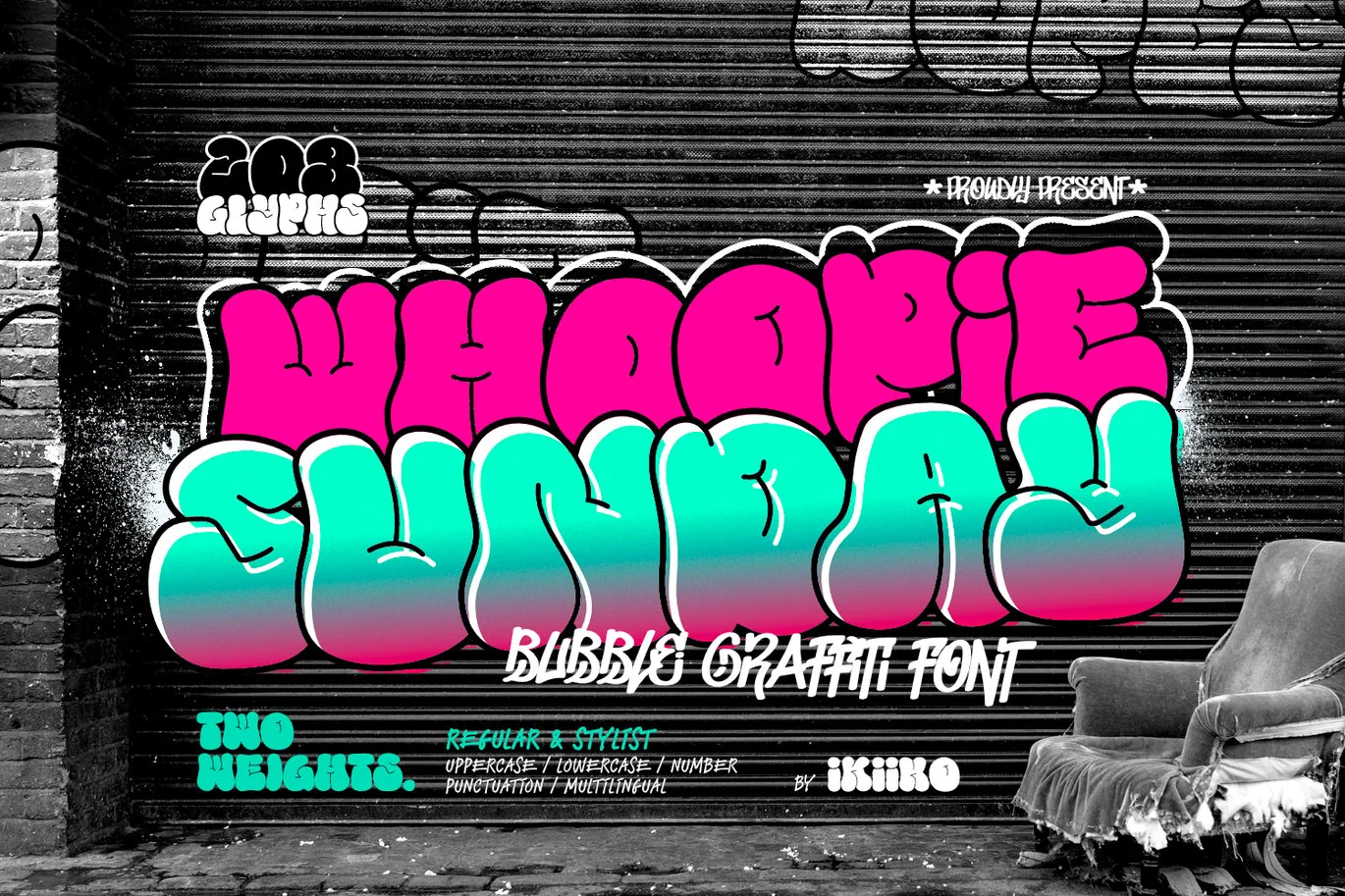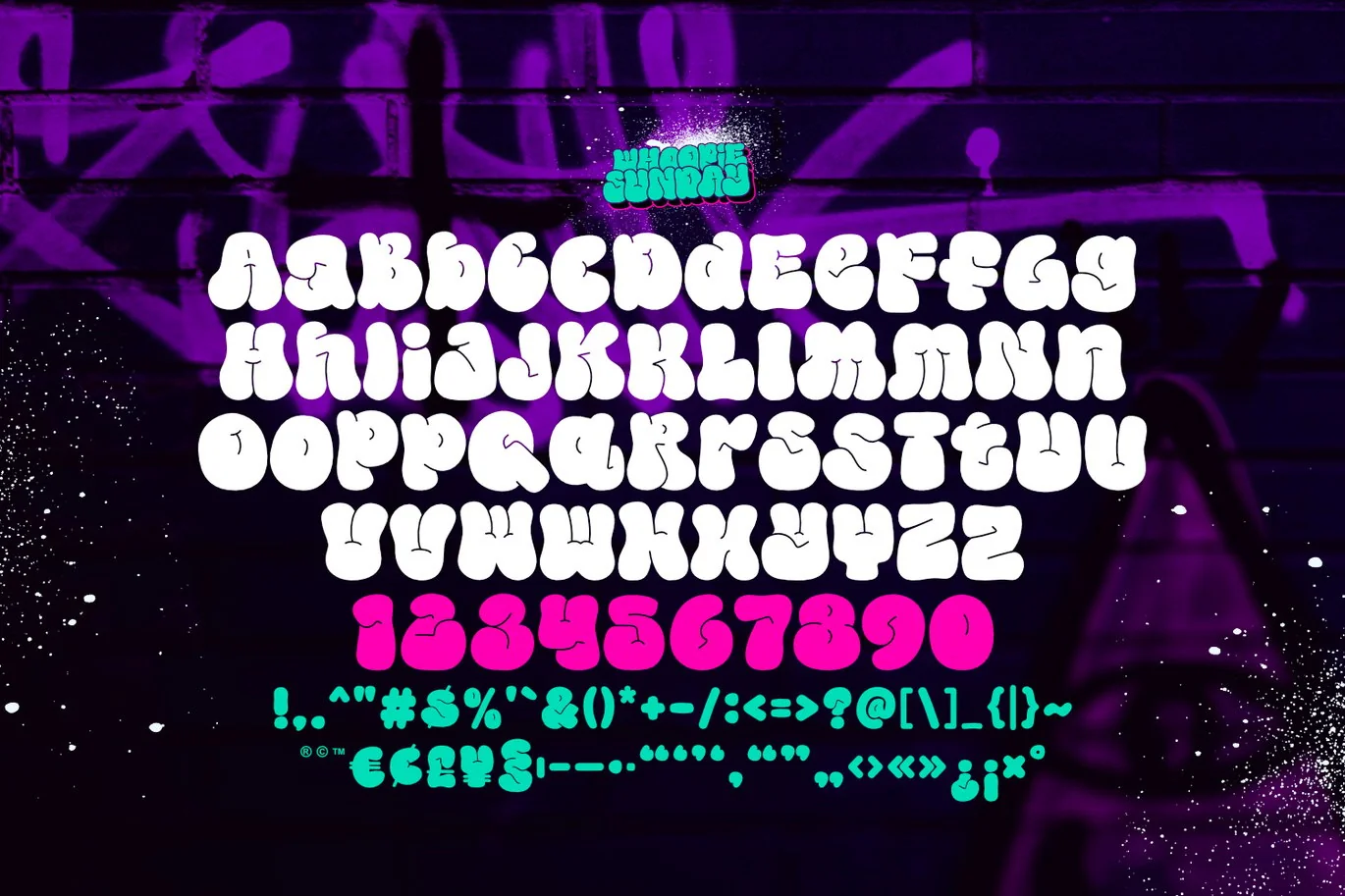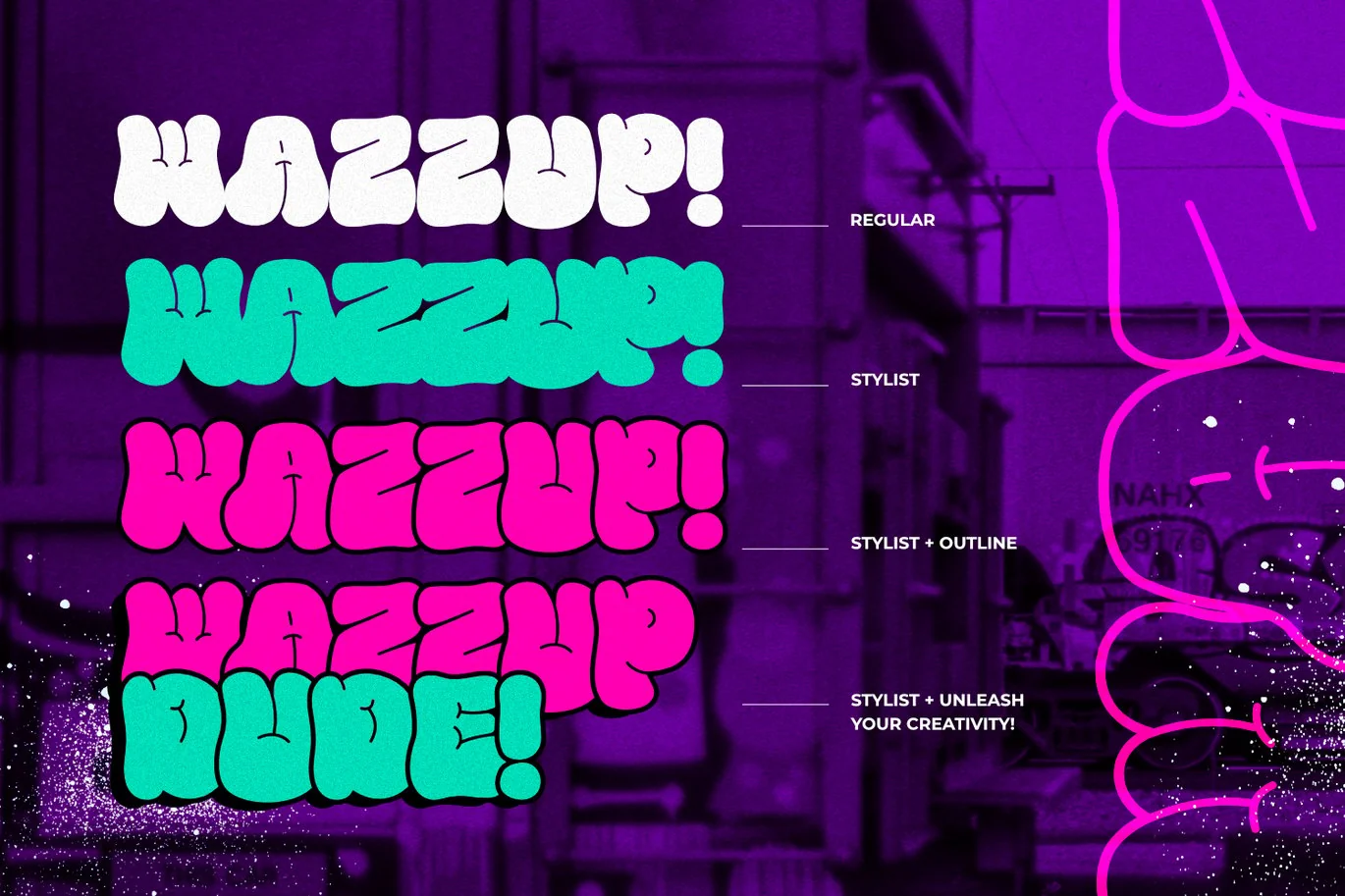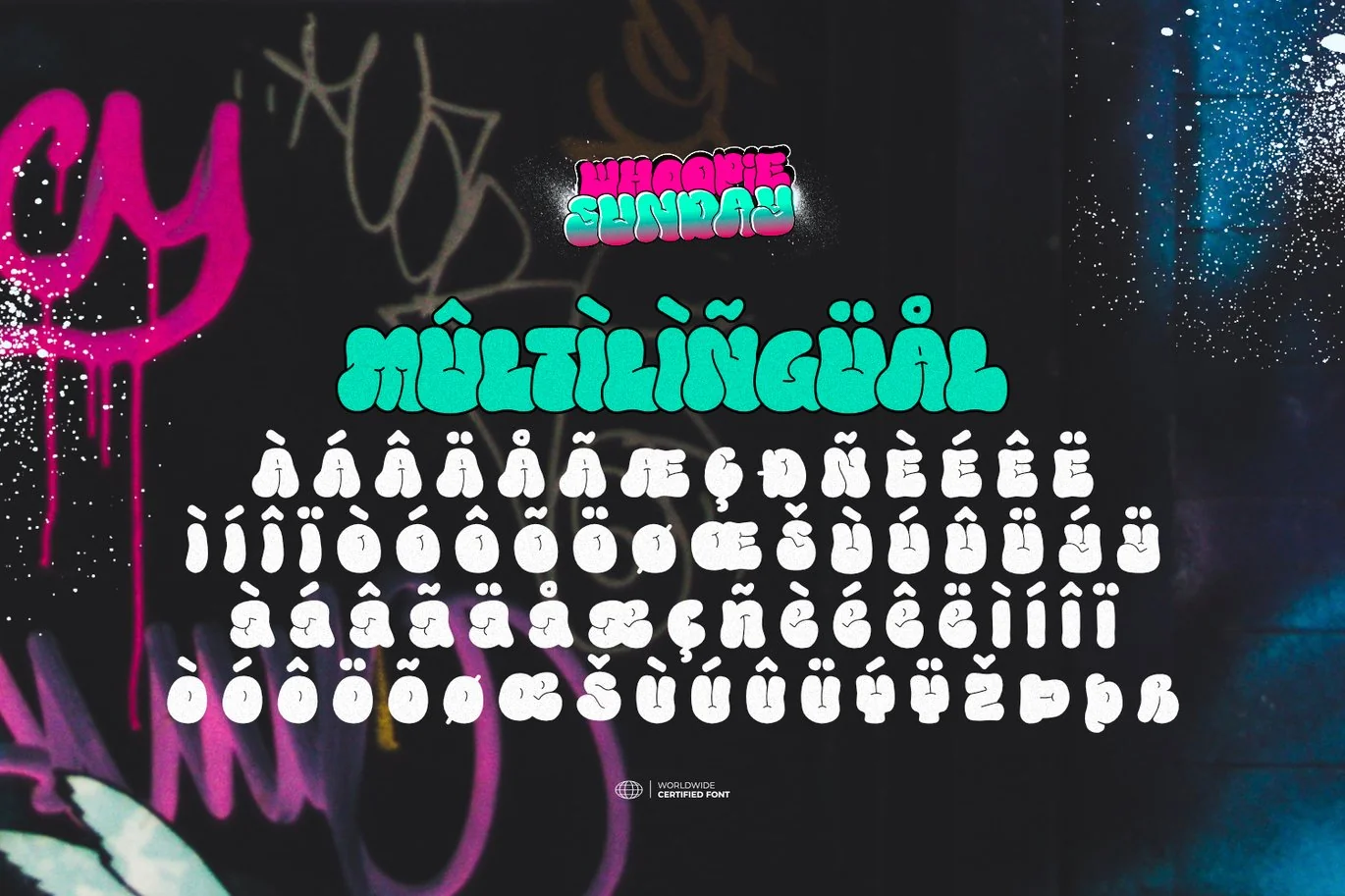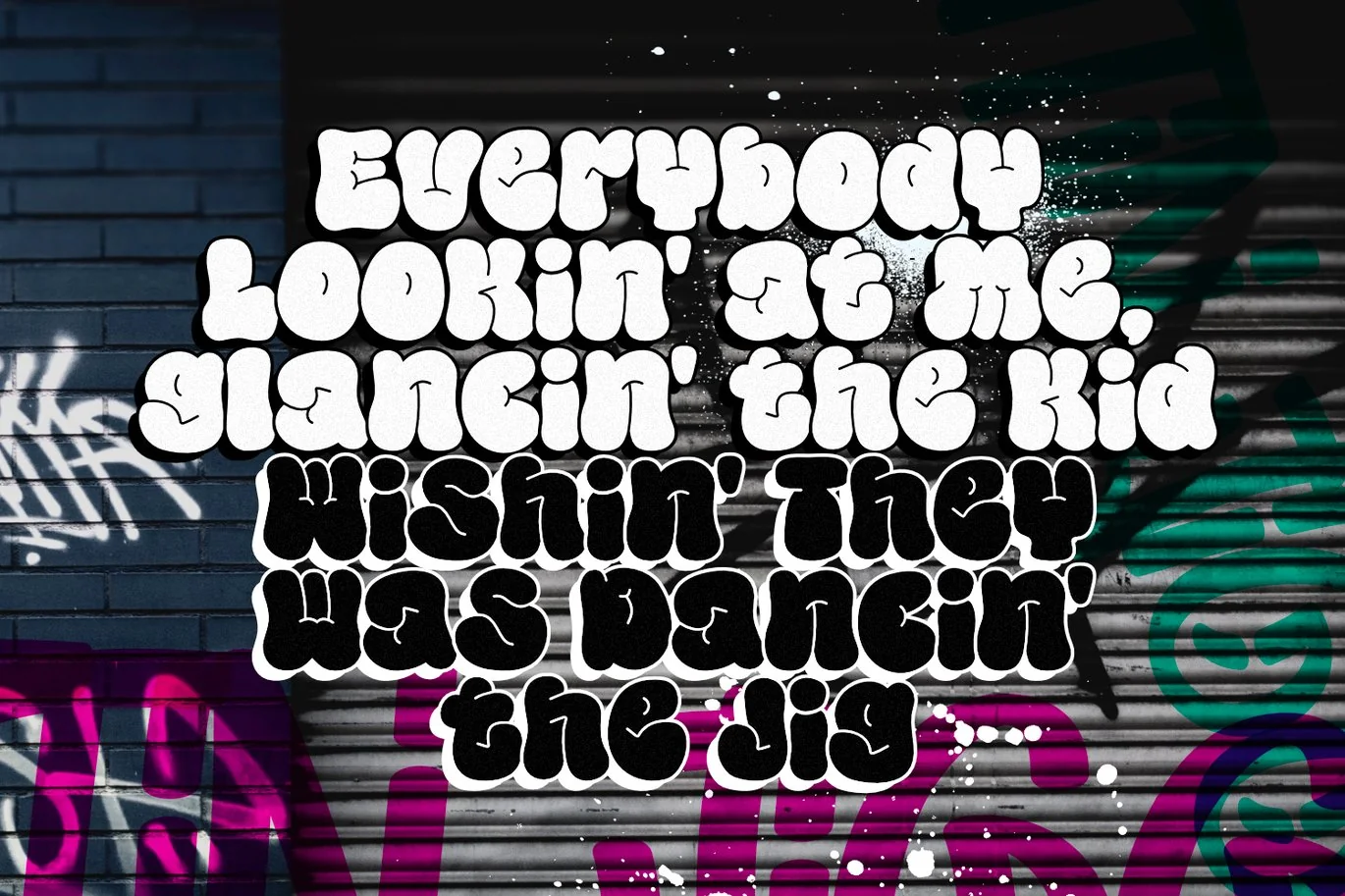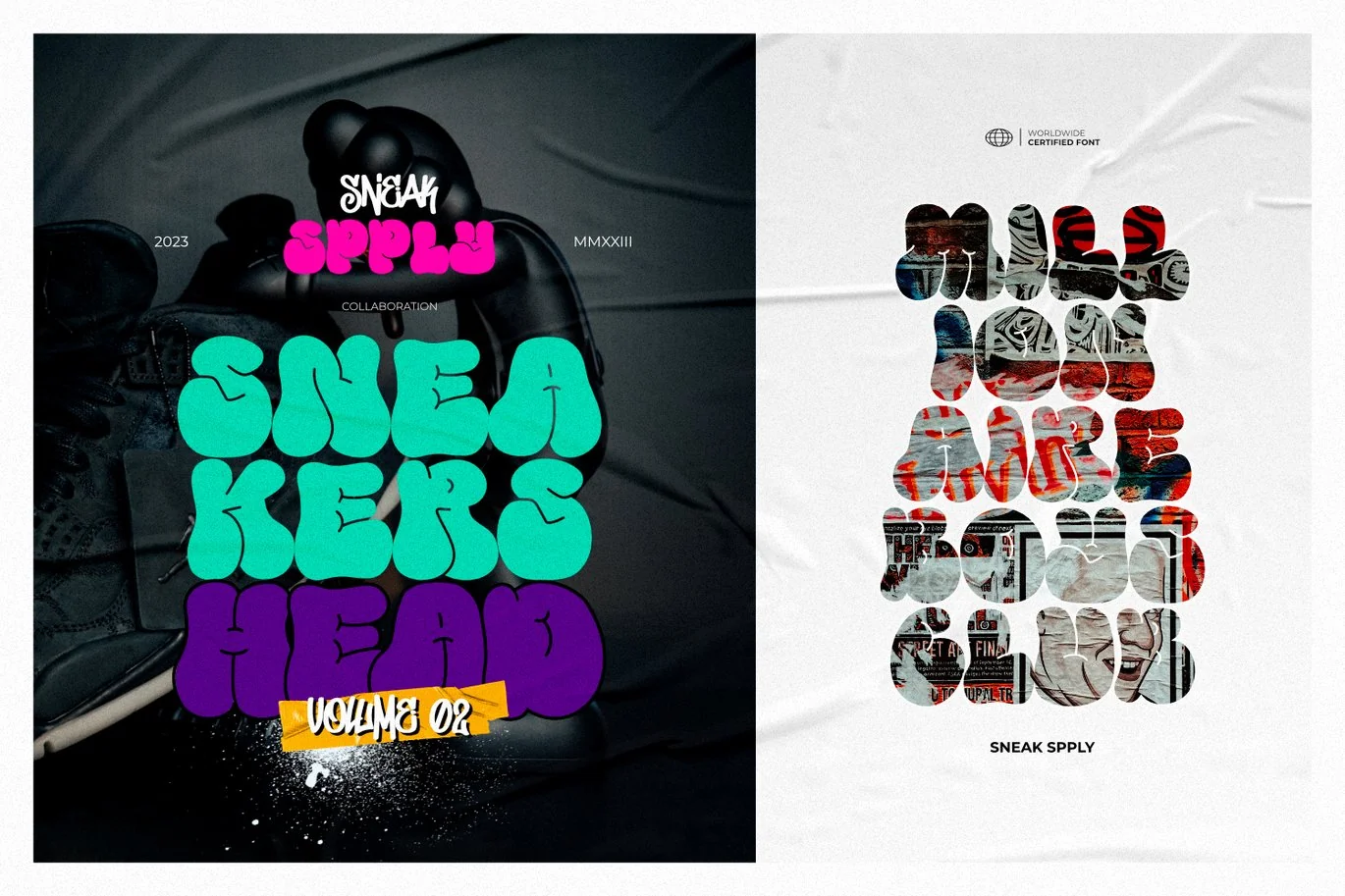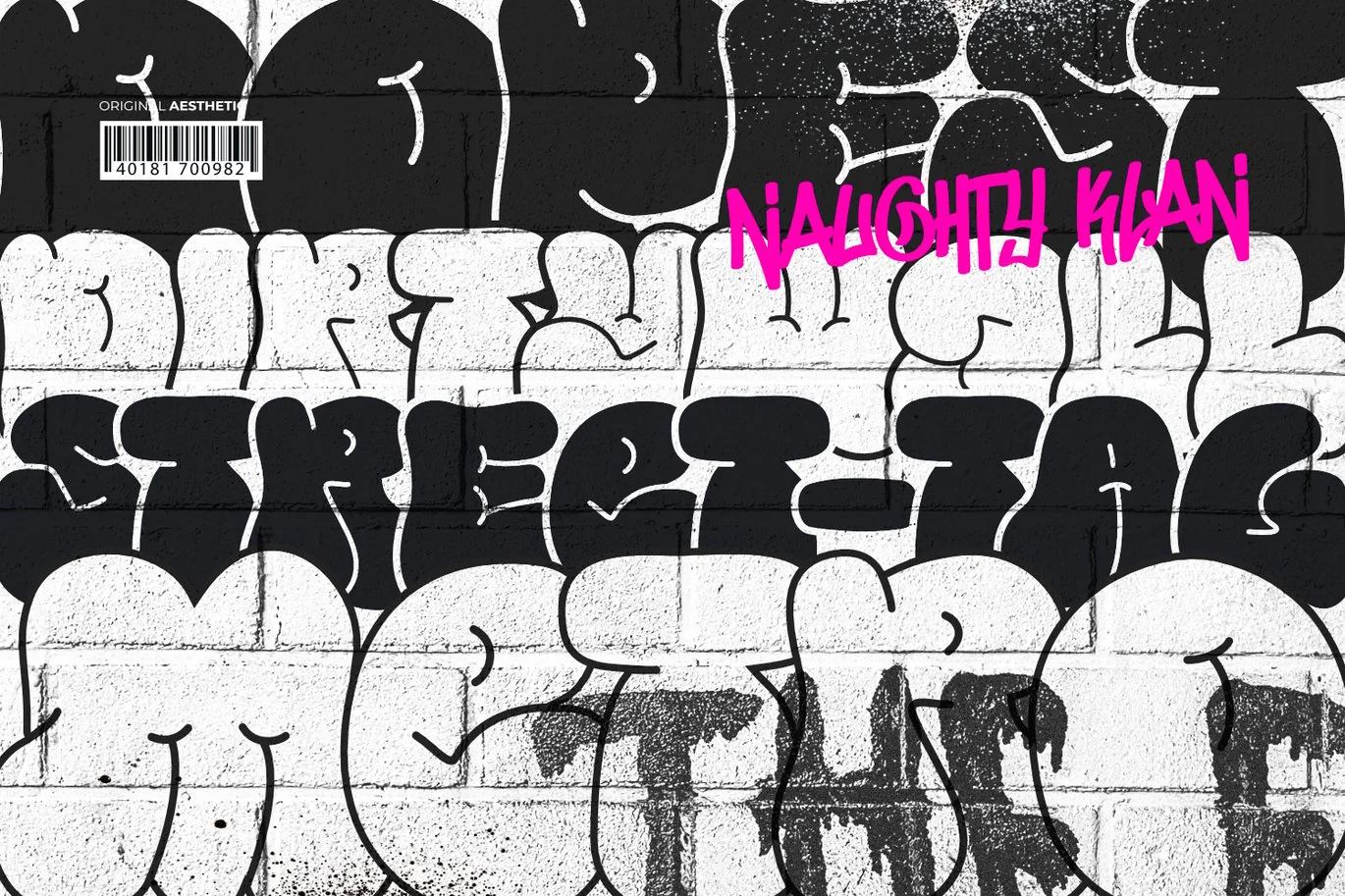
Whoopie Sunday – Bubble Graffiti Font
Proudly present Whoopie Sunday – Bubble Graffiti Font, created by ikiiko.
The vibrant bubble graffiti font Whoopie Sunday unleashes the energy of the streets with each character. This font, which is bold, edgy, and dripping with street attitude, explodes with urban vitality and inventiveness.
Whoopie Sunday constructed to resemble the vitality and fluidity of graffiti art. The font has a clearly joyful and rebellious feel thanks to the inflated characters that resemble bright, twirling bubbles. It uses the dialect of the streets to narrate tales of graffiti-covered alleys, thriving subcultures, and the unwavering spirit of individualistic creativity. This font has 2 types, namely regular and stylist. By using the stylist font, you can explore by playing with colors and outlines
This font is very suitable for making a streetwear brand, poster, magazine layout, fashion design, quotes, or simply as a stylish text overlay to any background image.